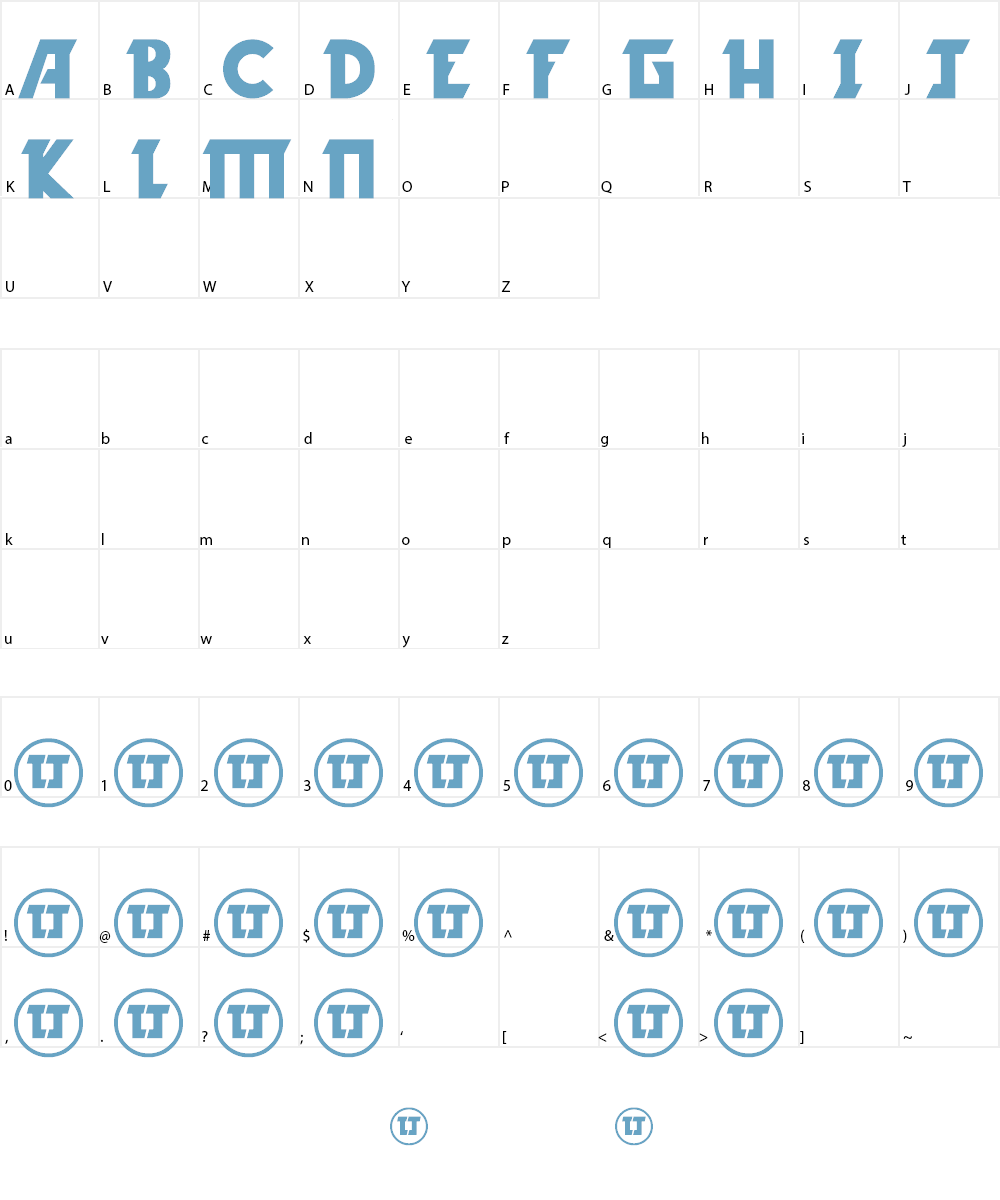
This is the official typeface of the new image or logo of LJ-Design Studios but still decided to open their characters for sale to the public.
Esta es la fuente tipográfica oficial de la nueva imagen O LOGOTIPO de LJ-Design Studios pero aun así se decidió abrir venta a sus caracteres para todo el público.